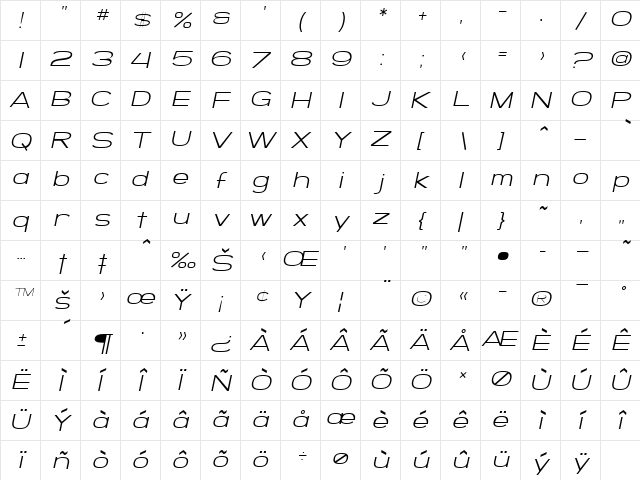
SF Grandezza Light Oblique
Design Context for SF Grandezza Typeface
SF Grandezza is a composed and adaptable typeface that performs quietly and consistently across a wide range of design contexts. Its italic angle brings a sense of urgency and motion to the letterforms. The delicate stroke weight brings airiness and refinement to layouts.
Pro Tip: Use SF Grandezza for emphasis, pull quotes, and subheadings where its slanted energy can add rhythm to the layout.